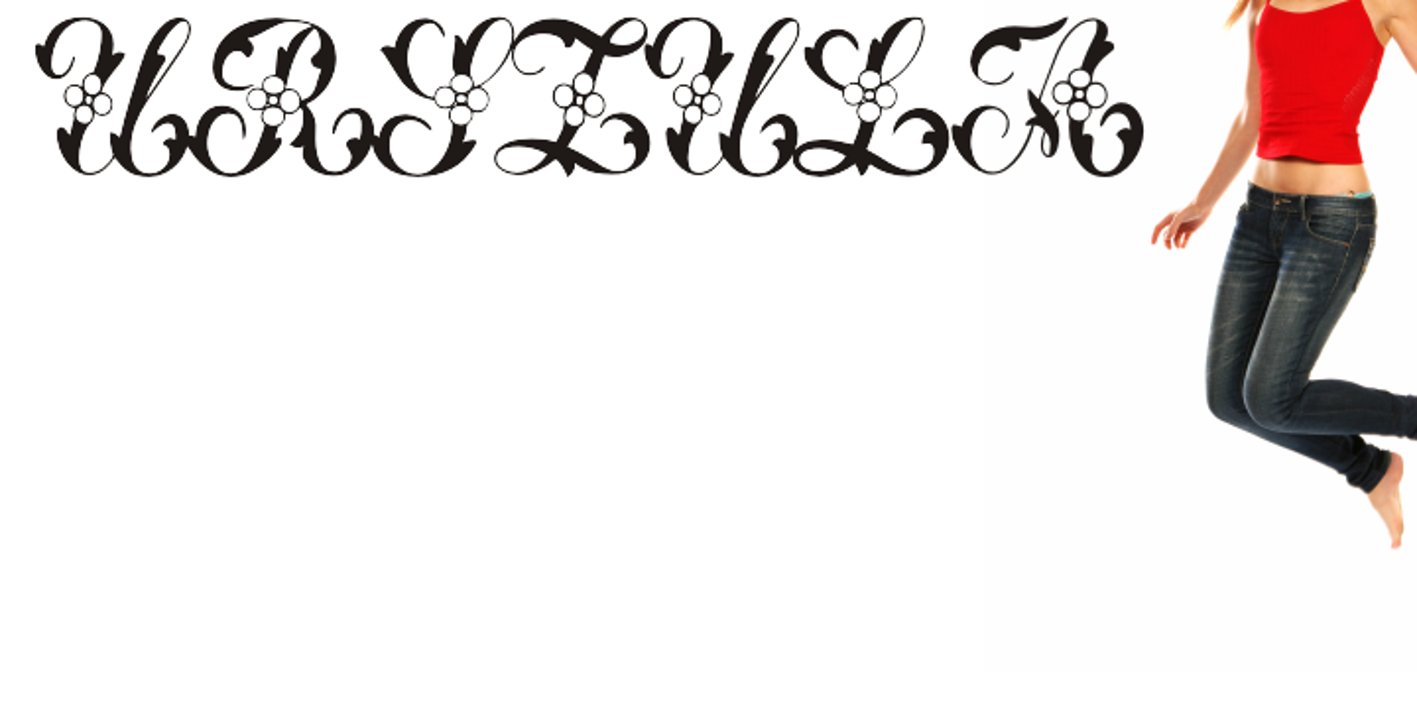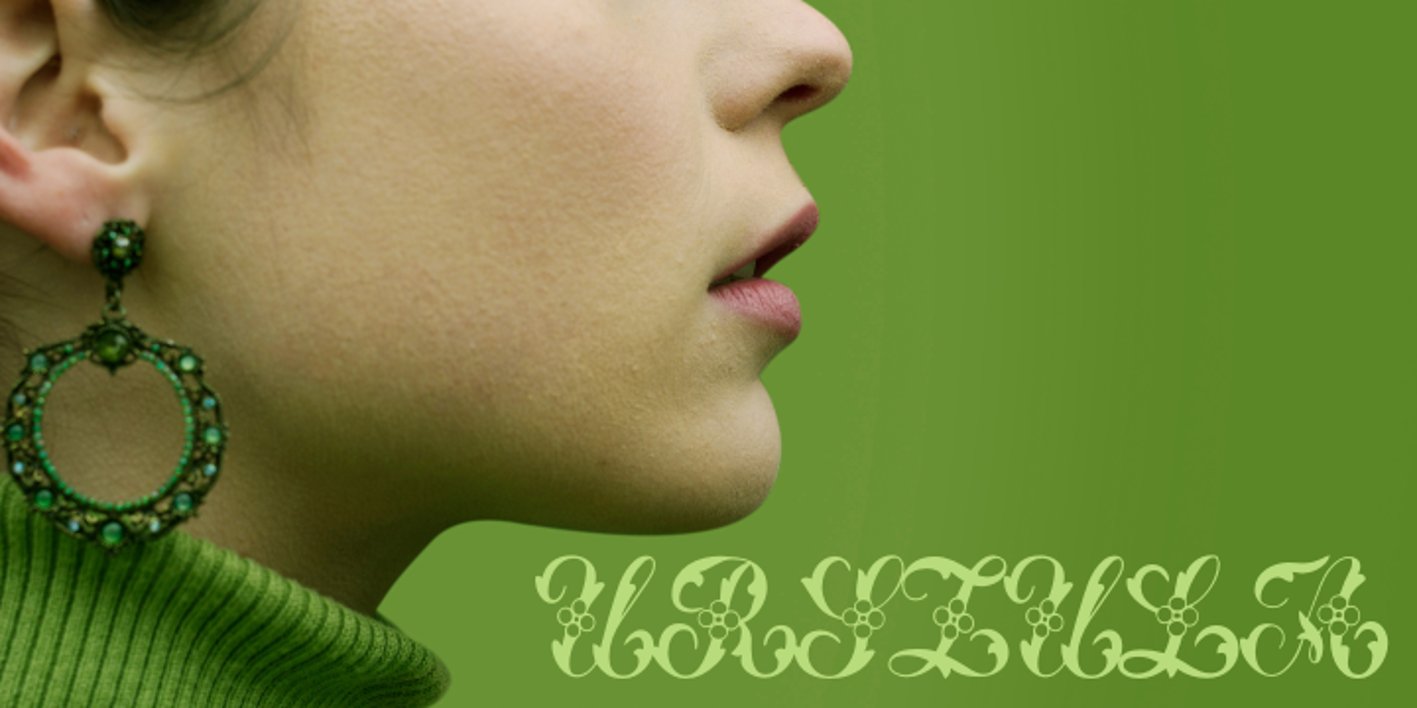
Urszula Font
Urszula Font is ideal for Eastern European cultural festivals, Polish heritage celebrations, traditional folklore exhibitions, Catholic church publications, European artisan craft branding, historical Polish literature covers, cultural museum displays, international heritage foundations, traditional embroidery workshops, and Eastern European restaurant branding. This distinguished typeface brings Slavic elegance and cultural heritage to any tradition-focused design project.
Urszula Font is exciting because it embodies the rich cultural heritage and spiritual strength associated with beloved Slavic traditions, featuring elegant letterforms that reflect the artistic sophistication and deep religious faith that characterize Eastern European culture. Its heritage character instantly conveys cultural authenticity, tradition, and the enduring beauty of Polish craftsmanship.
The Urszula Font family includes Light, Regular, Medium, and Bold weights with traditional alternates, cultural flourishes, heritage ornamental elements, and Polish-inspired decorative glyphs that enhance the Slavic aesthetic, providing cultural designers with authentic tools for creating typography that honors Eastern European artistic traditions.
Heritage brand designers appreciate Urszula Font for its exceptional ability to convey cultural authenticity and traditional craftsmanship through carefully balanced letterforms. The font's elegant character and cultural details create immediate associations with Polish folk art, religious traditions, and the artistic excellence that defines Eastern European cultural heritage and community pride.
The cultural significance of Urszula Font draws inspiration from Polish calligraphy traditions, religious manuscripts, and the rich artistic heritage of Eastern European folk culture, making it particularly effective for cultural organizations, heritage celebrations, and brands seeking to establish connections with Polish and Slavic cultural identity. Cultural teams working on heritage projects find this font essential.
Whether used for Polish cultural centers, heritage festivals, or traditional craft exhibitions, Urszula Font delivers the perfect combination of cultural authenticity and artistic elegance. Its Slavic appeal and heritage significance make it an indispensable choice for organizations that celebrate Polish culture, Eastern European traditions, and the enduring artistic legacy of Slavic craftsmanship.